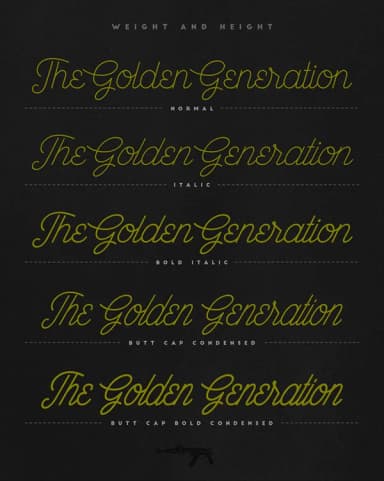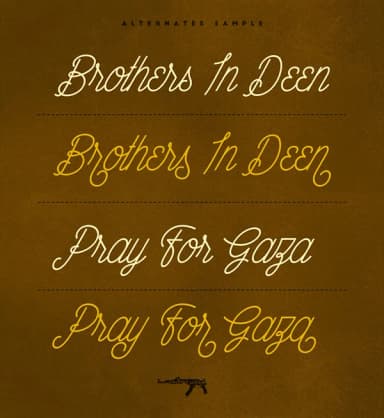
1 / 5About Wahhabi Script Font
Wahhabi Script Font by Mikrojihad Typefounder is a flowing handwritten typeface that brings contemporary elegance to sophisticated lettering projects. This script combines smooth, expressive stroke work with natural letterforms that feel both refined and approachable, making it an excellent choice for designers seeking character-driven typography with real personality. The typeface family includes several versatile design variants, Bold Condensed, Bold Italic, Butt Cap, and Slant, offering considerable range for wedding announcement suites, luxury product label design, artisanal brand identity development, and hand-lettered storefront signage. Each variation maintains the font's distinctive character while opening new compositional possibilities for layered decorative applications, custom apparel design, or branding elements that demand visual impact. Wahhabi Script's smooth, flowing forms work equally well in large display sizes or smaller text blocks, providing versatility across your design projects. Whether you're creating heirloom-quality stationery collections, crafting boutique packaging solutions that stand out on shelves, developing custom logo concepts with hand-drawn character, or designing vinyl decal artwork for creative businesses, this typeface delivers both technical strength and the visual presence needed for professional work. The font integrates seamlessly with standard design software, making it simple to incorporate into your creative workflow. Add Wahhabi Script to your typography collection via Creative Fabrica and unlock fresh possibilities for your next project.
- Elegant, Flowing, The Wahhabi Script Bold Condensed
Wahhabi Script Font is a script font that shines as a display or heading face. Pair it with a clean sans-serif or serif font for body text — the contrast creates a clear hierarchy while the two styles stay balanced and easy to read.
Wahhabi Script Font